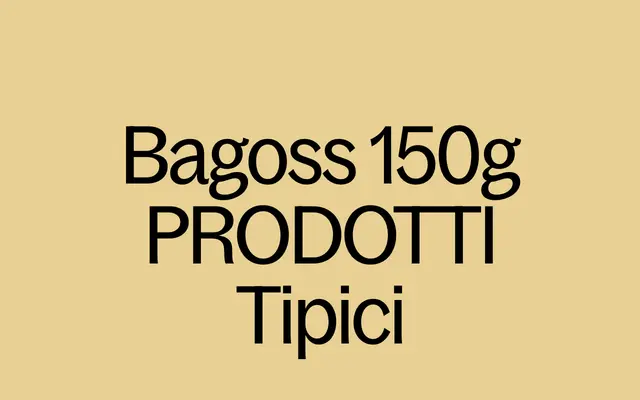
A grotesque sans in three width families — Condensed, Standard and Extended — spanning six weights each, with a three-axis variable font covering weight, slant and width.
Thirty-six static styles across Condensed, Standard and Extended families give the collection considerable range for layout work requiring consistent type across different measures. Each family runs from Thin to Bold with matching italics, and the accompanying variable font exposes weight, slant and width axes for finer control. The name references Bagòss, a saffron-tinged grana cheese from Bagolino in Lombardy, lending the collection a deliberate regional character without spelling it out in the letterforms.
Bagoss presents as a contemporary grotesque sans-serif available across three width variants; its clean, upright forms and range of weights place it squarely in the grotesque tradition without overt humanist or geometric tendencies.